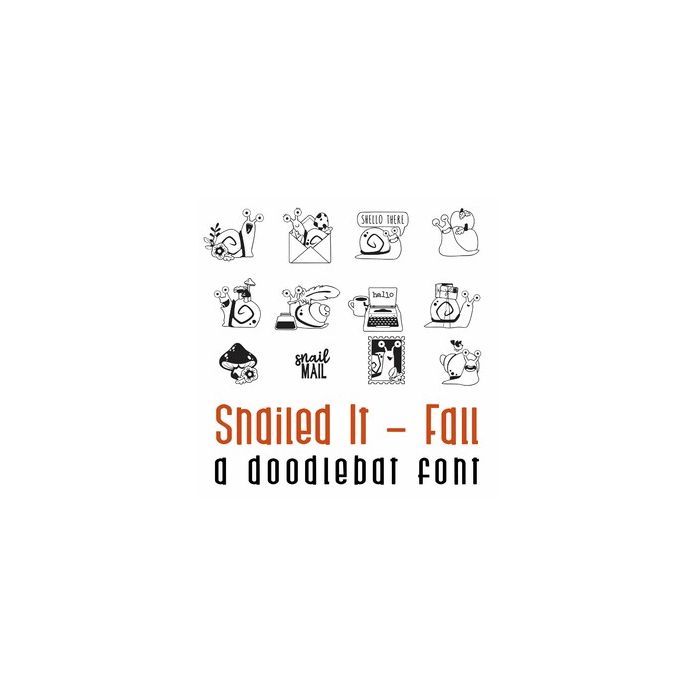
Our Snailed It characters are back and ready for Fall! This doodlebat font features 26 snails ready for Autumn. Perfect for cards, crafts, gifts, decor, planner stickers, scrapbook pages and more!